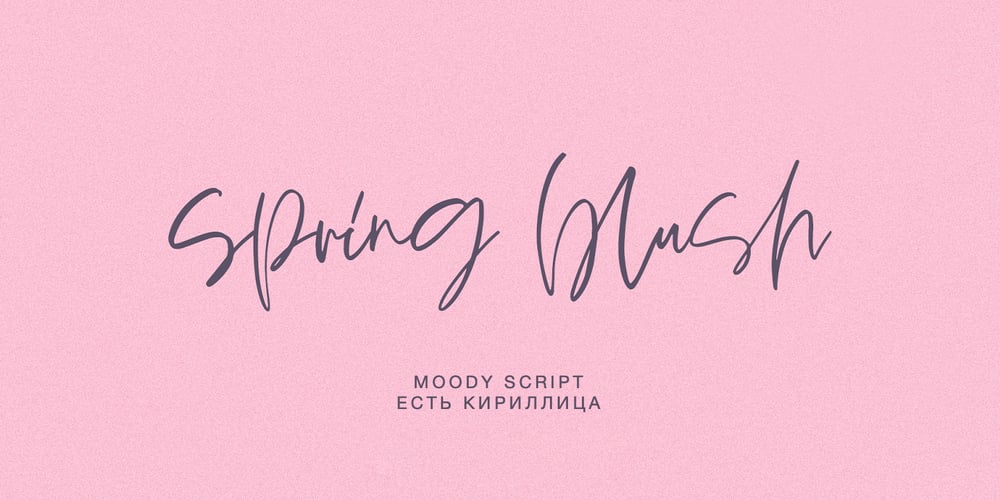
Spring Blush
Spring Blush font
Spring Blush Font Family was designed by Dmitrii Chirkov and published by Supfonts. Spring Blush contains 1 styles and family package options. Here’s my new experiment. This font breaks the boundaries even more. And most importantly, this font fully supports Cyrillic! Now you can diversify your projects, create cards and greetings, posts and titles for blogs. The scope is huge. Plus it’s fresh, not like other fonts – the ability to stand out from the crowd! — Здравствуйте, друзья. Вот мой новый эксперимент. Этот шрифт еще больше нарушает границы.И самое главное, он полностью поддерживает кириллицу! Теперь вы можете разнообразить свои проекты, создавать открытки и поздравления, посты и заголовки для блогов. Область применения просто огромна. Плюс это свежий, не похожий на другие шрифт – возможность выделиться из общей массы! — – Fully supports Cyrillic – Uppercase and lowercase – Numbers and punctuation – Foreign language support – Ligatures Check out my blog: – https://www.instagram.com/zloillev – pinterest.com/dmitriychirkov7 Enjoy!